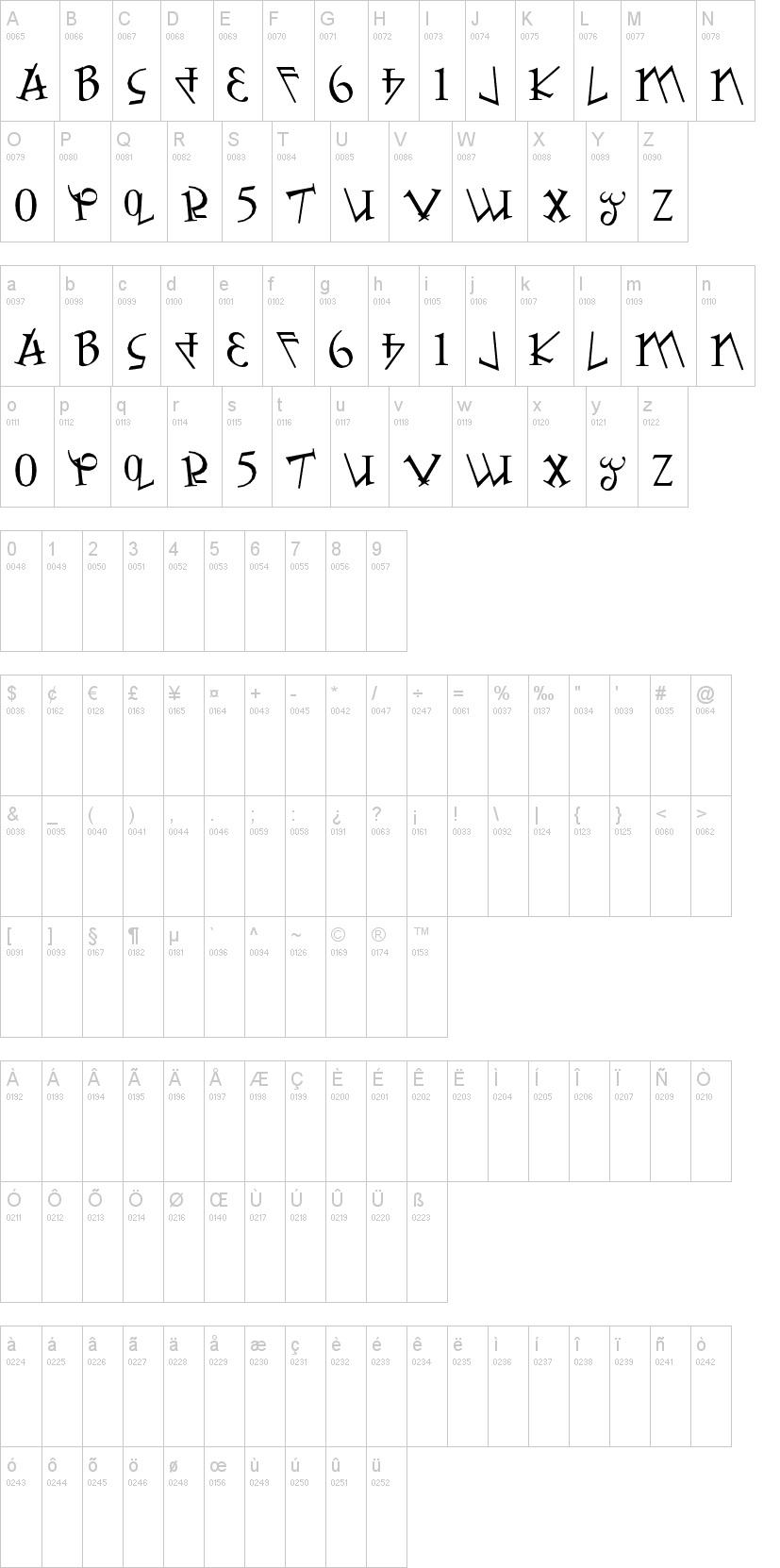
Шрифт Numbafont
Numbafont is an experiment in comparing the similarities between letters and numbers. Each letter is created with the minimum number of numbers. For example, the letter R is made by combining 1 and 5.